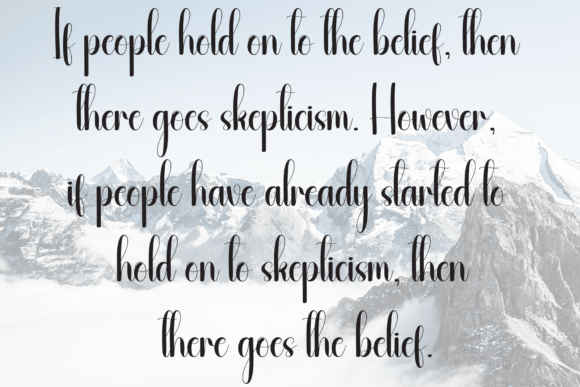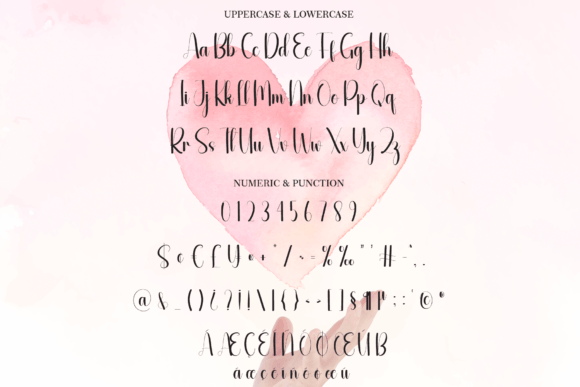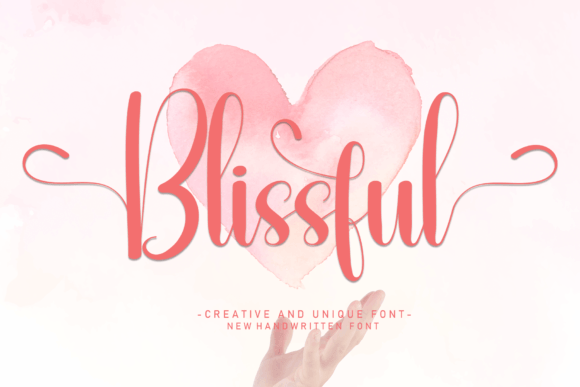
Introducing Blissful Font: The Sweet and Friendly Handwritten Font for Your Design Needs
Are you a designer or crafter looking for a font that can add a touch of warmth and personality to your designs? Look no further than Blissful Font, a sweet and friendly handwritten font that’s perfect for creating beautiful wedding invitations, cards, and other designs that require a fun and playful touch.
What is Blissful Font?
Blissful Font is a fresh and neat handwritten font that’s designed to bring a sense of joy and happiness to your designs. With its smooth and flowing lines, this font is ideal for creating a wide range of designs, from wedding invitations and cards to posters, flyers, and more.
Key Features of Blissful Font
- Sweet and Friendly Design: Blissful Font has a sweet and friendly design that’s perfect for creating designs that require a personal touch.
- Handwritten Style: This font has a beautiful handwritten style that’s perfect for creating unique and personalized designs.
- Fresh and Neat: Blissful Font is a fresh and neat font that’s designed to be easy to read and visually appealing.
- Versatile: This font is versatile and can be used for a wide range of designs, from wedding invitations and cards to posters, flyers, and more.
Why Choose Blissful Font?
There are many reasons why you should choose Blissful Font for your design needs. Here are just a few:
- Unique and Personalized Designs: With Blissful Font, you can create unique and personalized designs that reflect your personality and style.
- Easy to Read: This font is easy to read, making it perfect for designs that require a lot of text, such as wedding invitations and cards.
- Fun and Playful: Blissful Font has a fun and playful design that’s perfect for creating designs that require a lighthearted touch.
- High-Quality: This font is high-quality and designed to look great on any device or medium.
How to Use Blissful Font
Using Blissful Font is easy. Here are just a few ways you can use this beautiful font:
- Wedding Invitations: Use Blissful Font to create beautiful and unique wedding invitations that reflect your personality and style.
- Cards: This font is perfect for creating cards for special occasions, such as birthdays, anniversaries, and holidays.
- Posters and Flyers: Use Blissful Font to create eye-catching posters and flyers that grab attention and communicate your message.
- Social Media Graphics: This font is perfect for creating social media graphics that require a personal touch.
Tips and Tricks for Using Blissful Font
Here are just a few tips and tricks for using Blissful Font:
- Use it with Other Fonts: Blissful Font can be paired with other fonts to create a unique and visually appealing design.
- Experiment with Colors: This font looks great in a variety of colors, so don’t be afraid to experiment and find the perfect color for your design.
- Use it for Headings and Titles: Blissful Font is perfect for headings and titles, as it adds a touch of personality and whimsy to your design.
Blissful Font is a sweet and friendly handwritten font that’s perfect for designers and crafters who want to add a touch of warmth and personality to their designs. With its smooth and flowing lines, this font is ideal for creating a wide range of designs, from wedding invitations and cards to posters, flyers, and more. Whether you’re looking for a unique and personalized font for your next design project, or you just want to add a touch of whimsy to your designs, Blissful Font is the perfect choice.